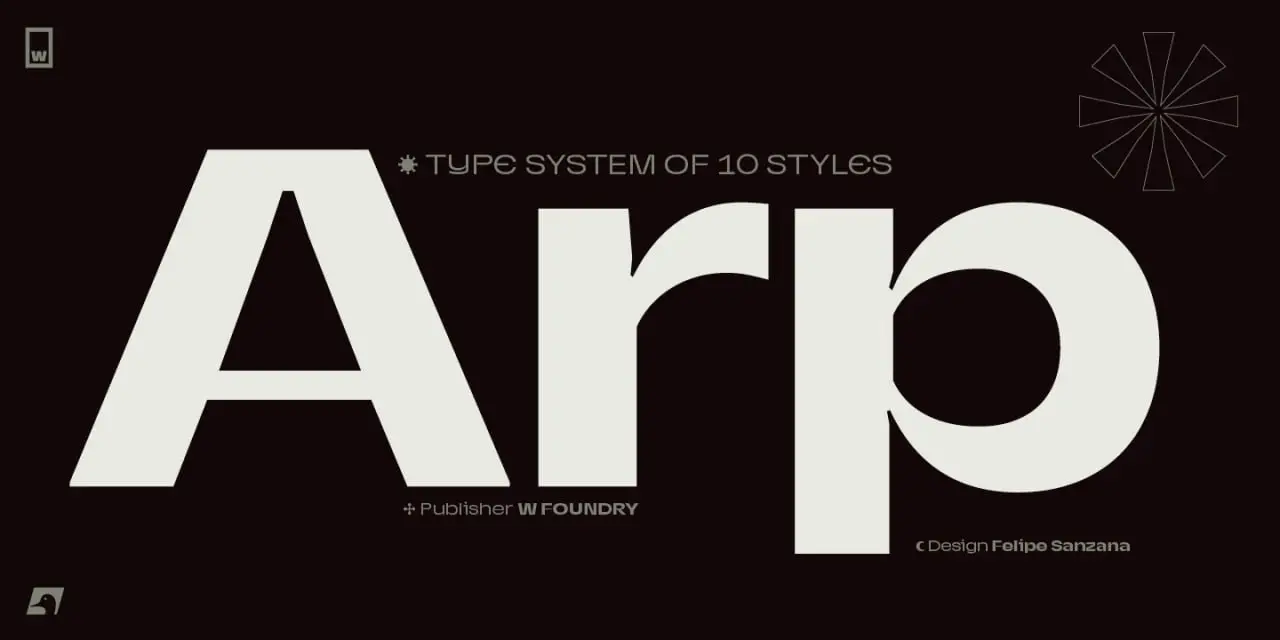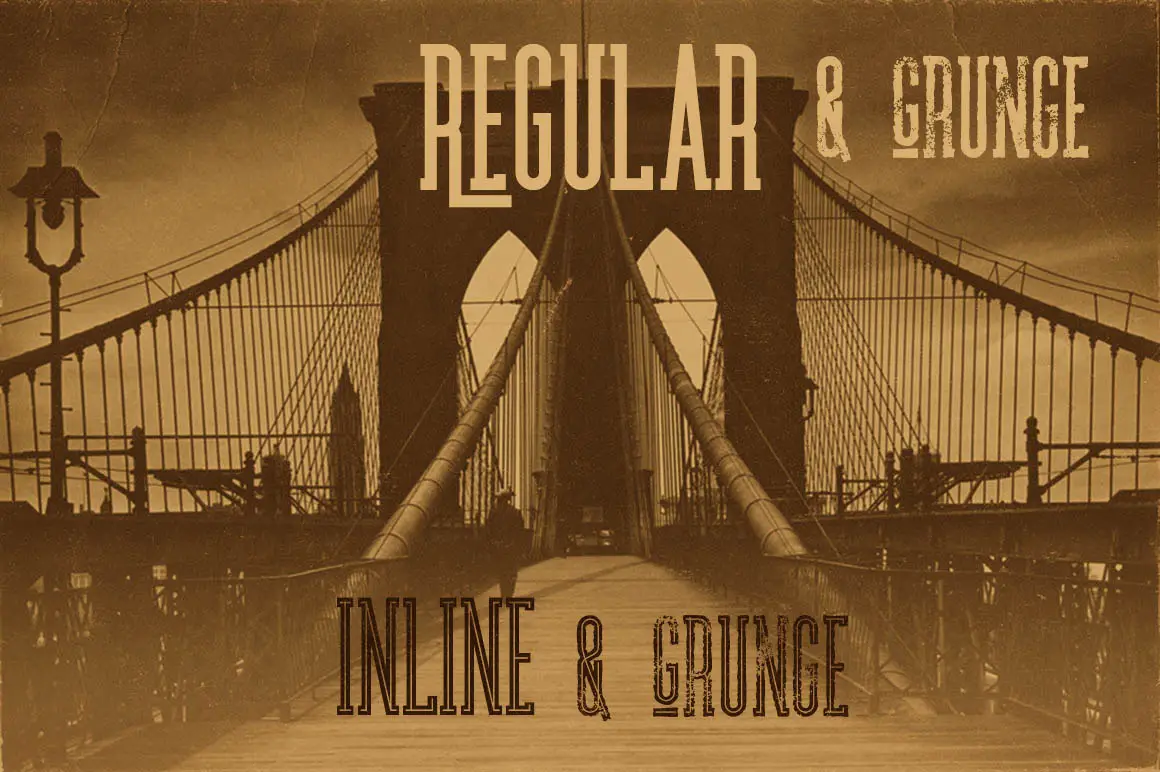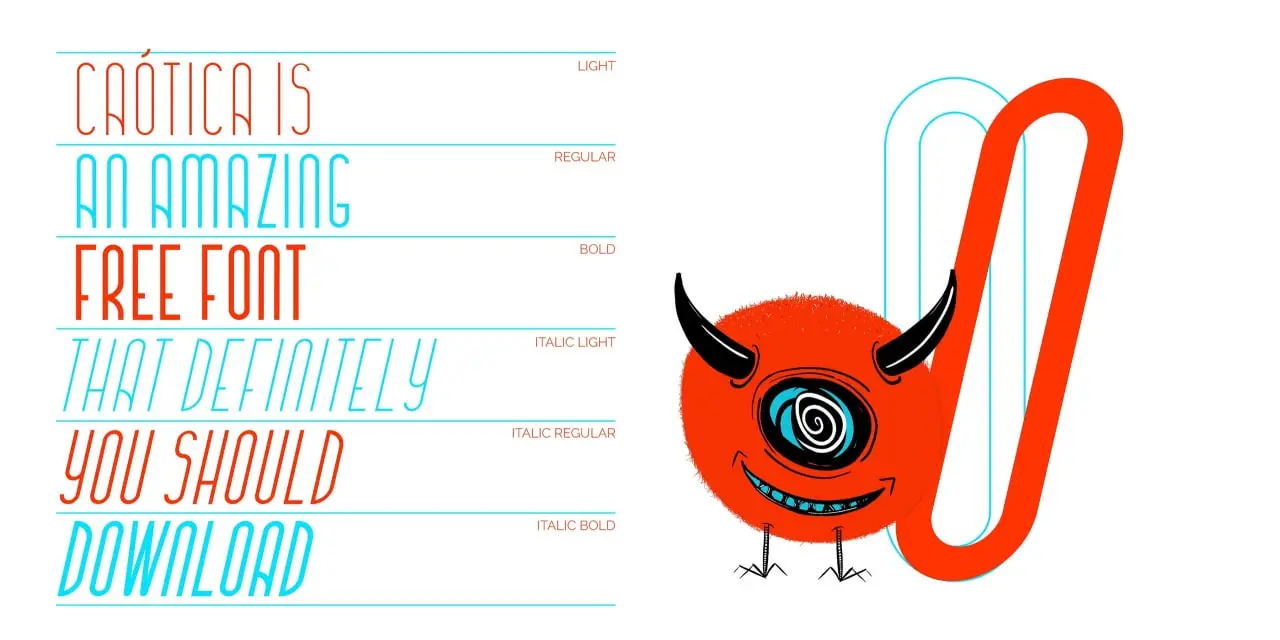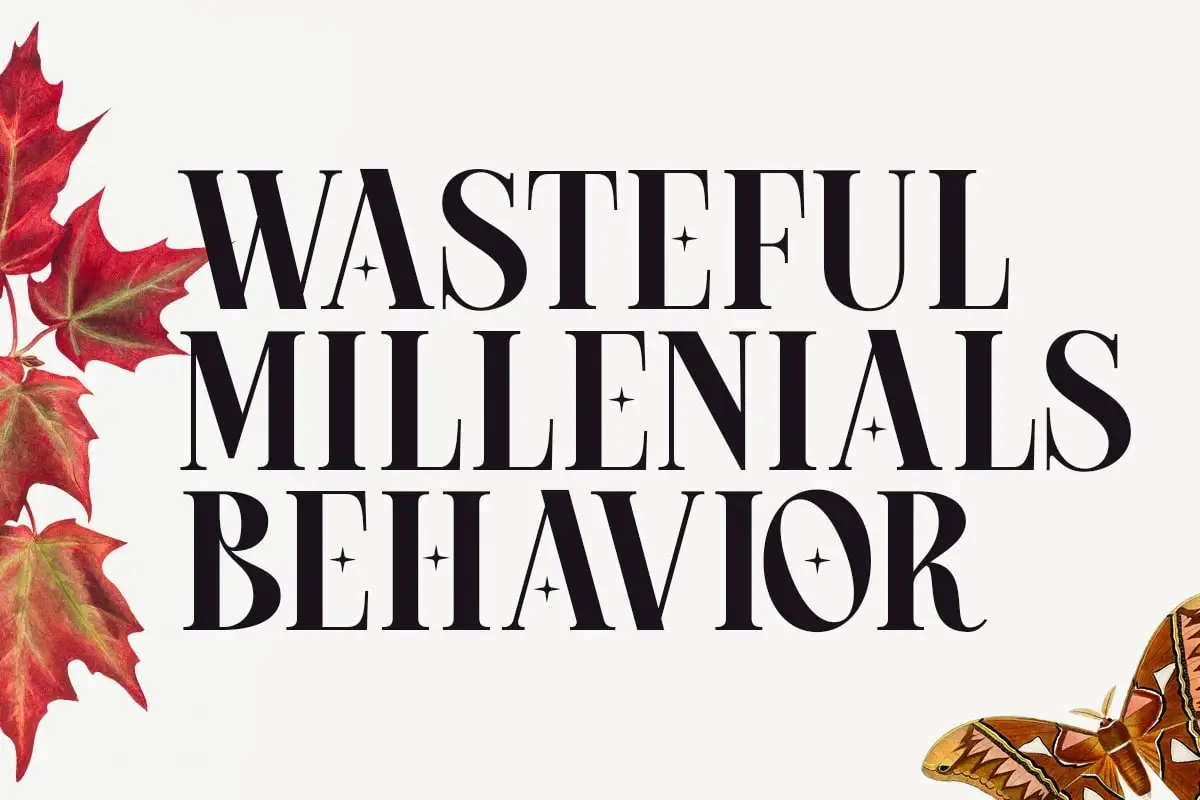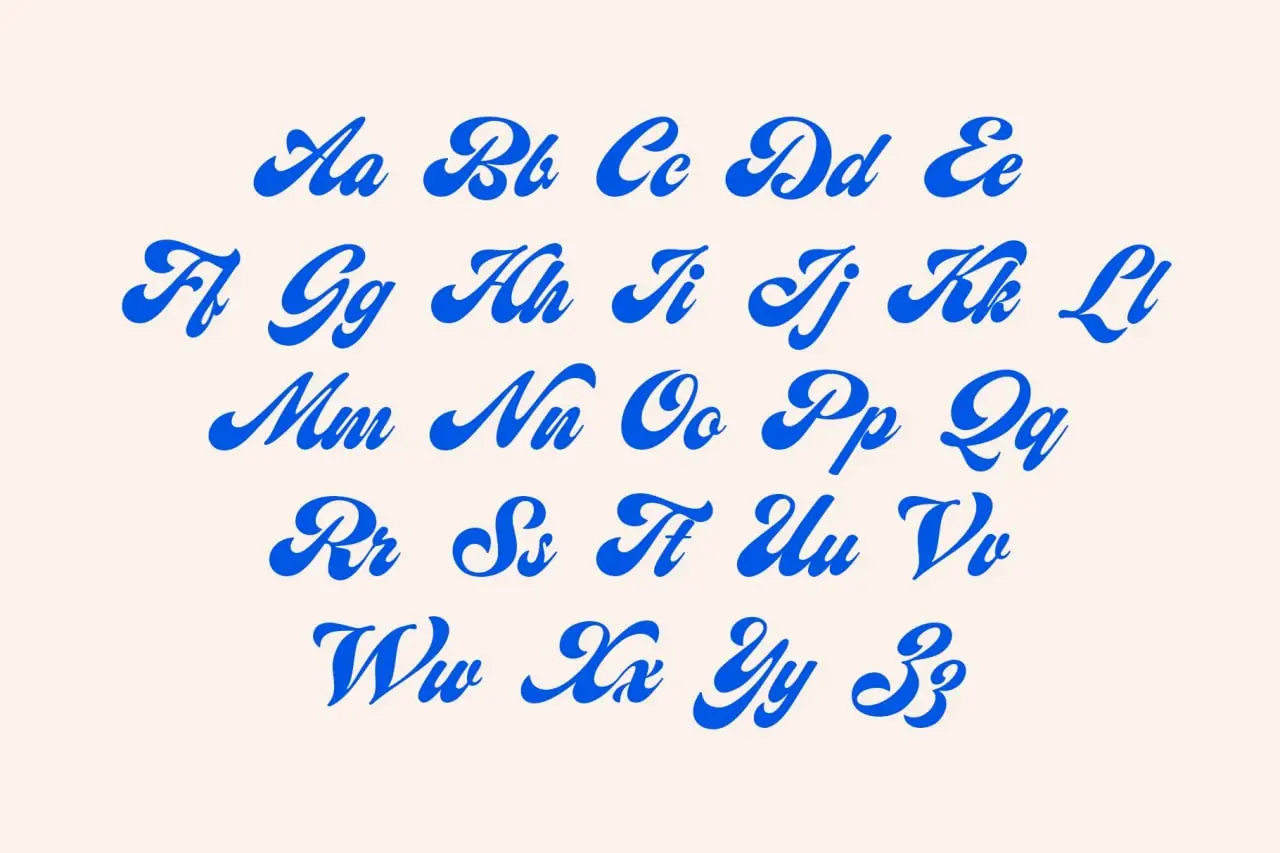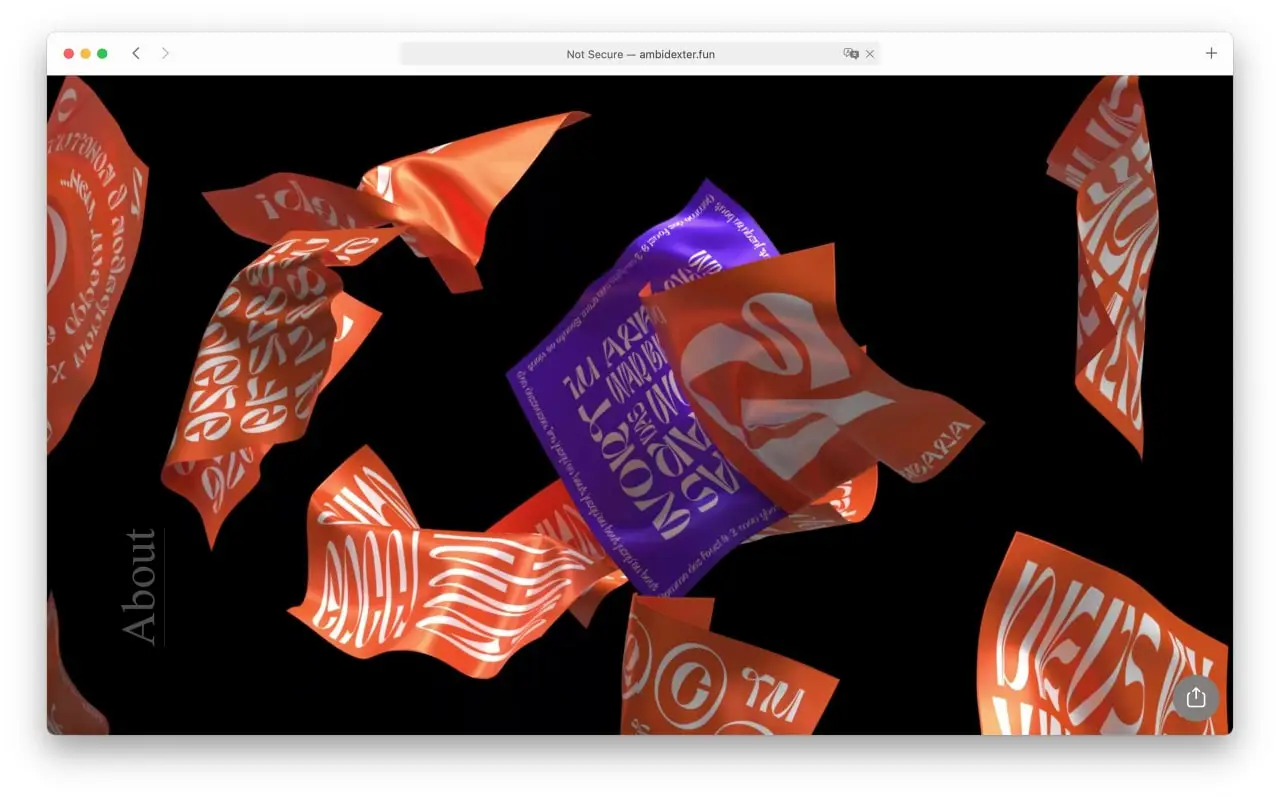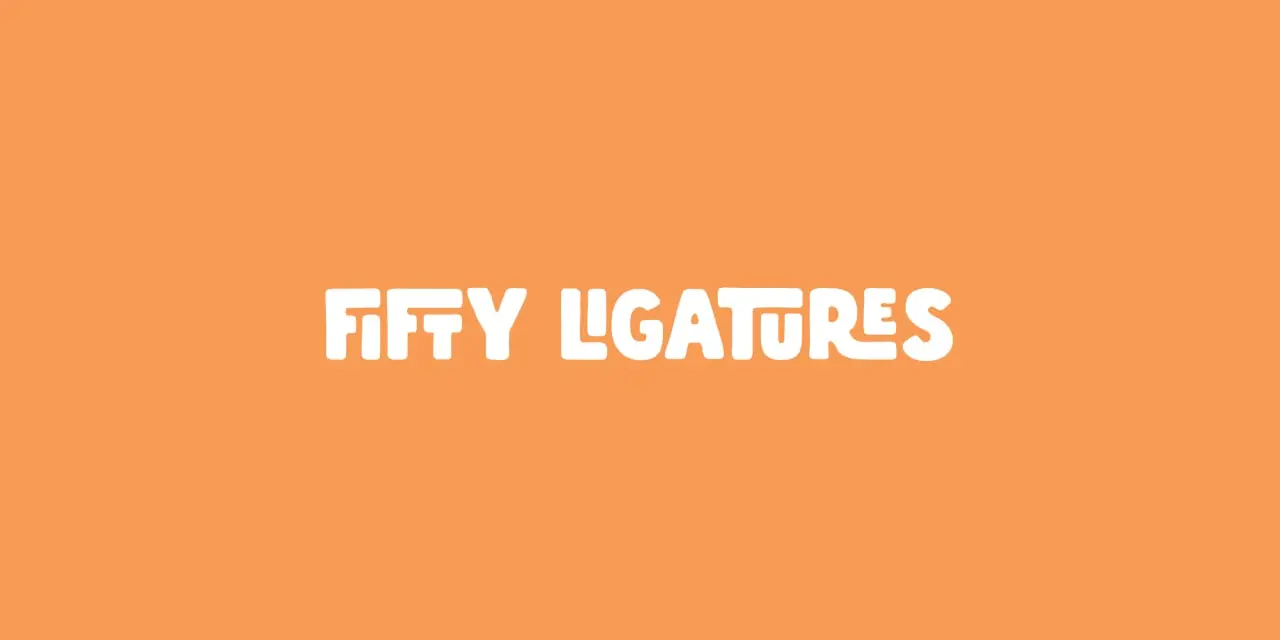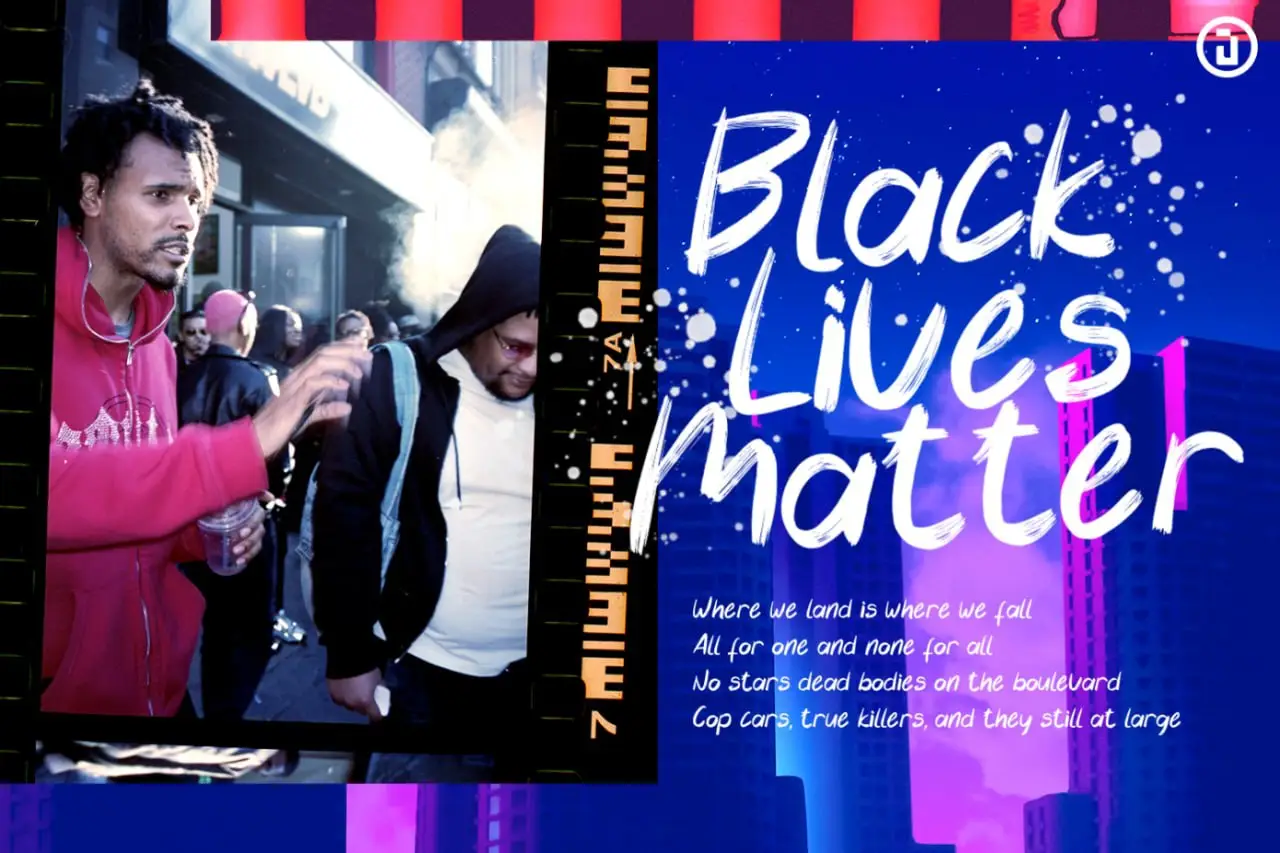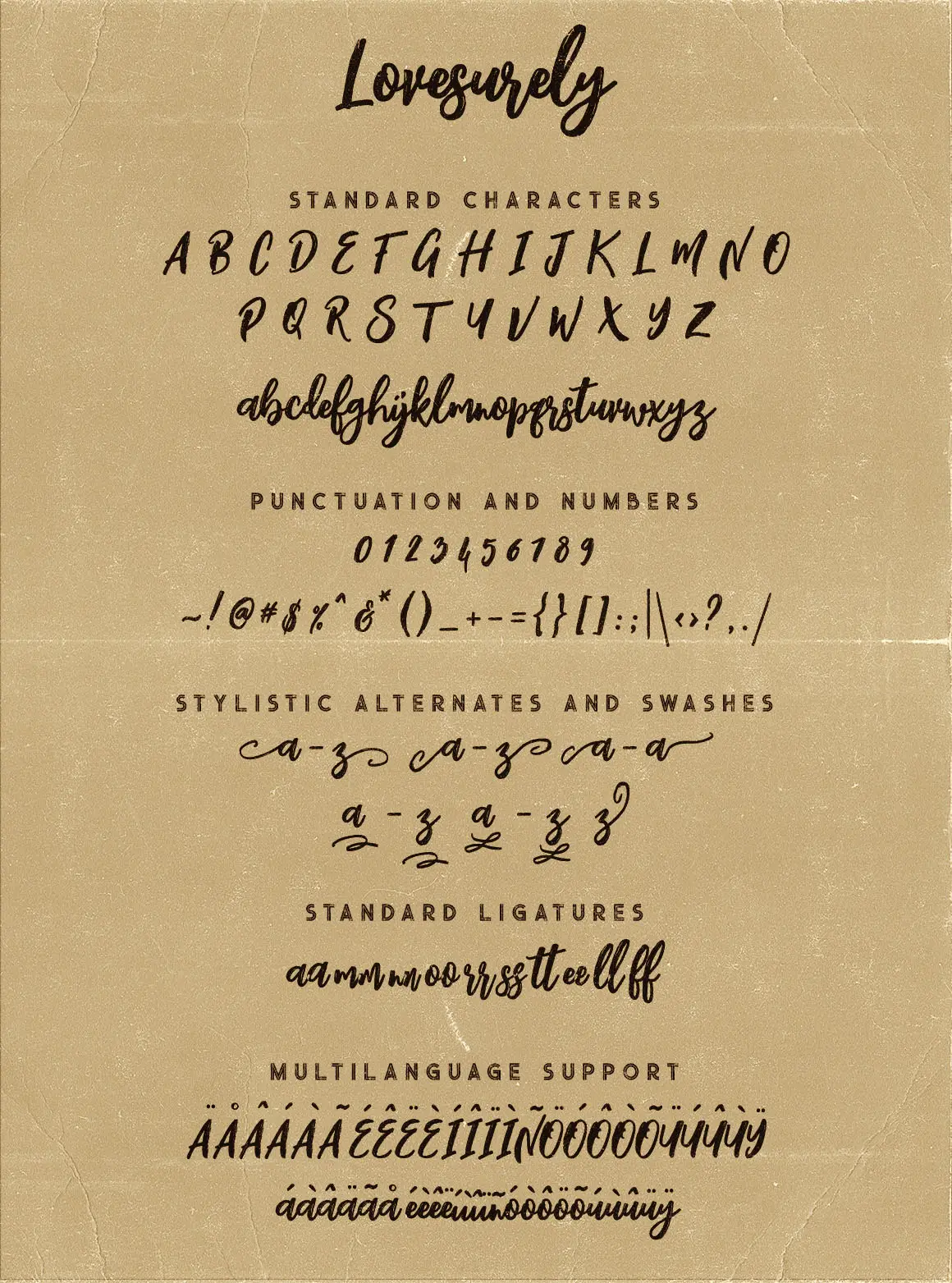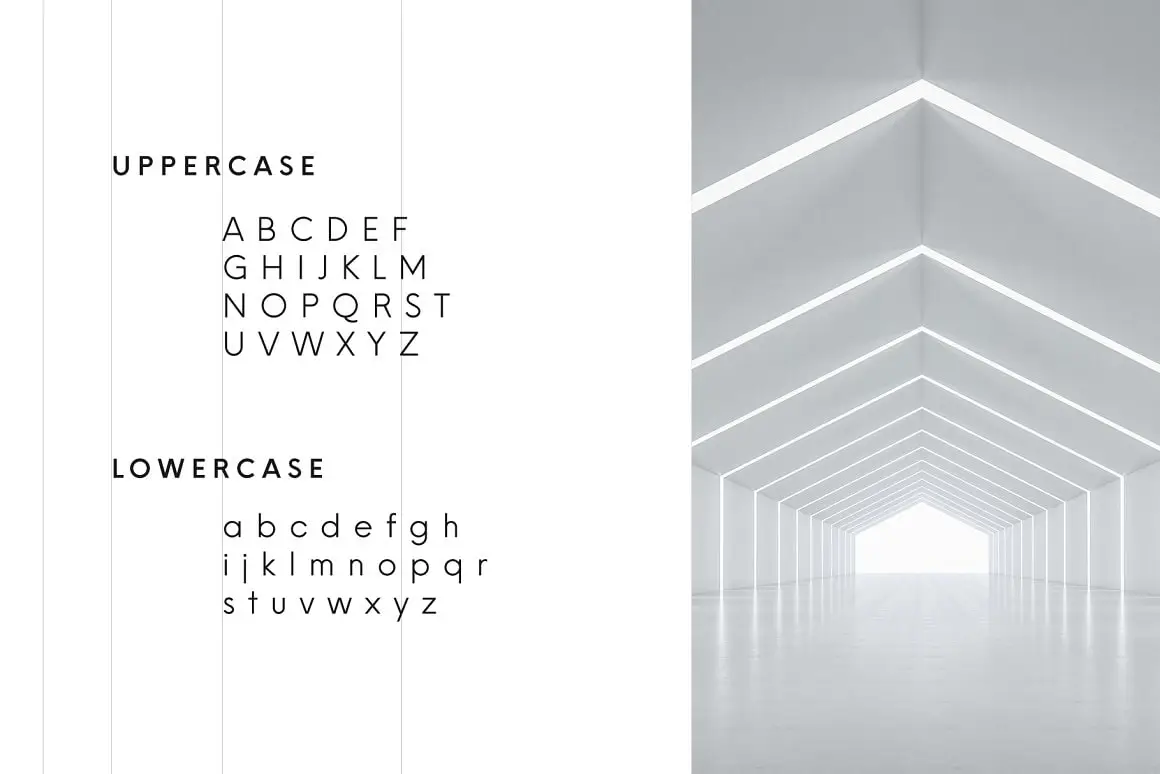
Liviatica-Display Font
Make your headlines scream elegance with this stunning display typeface! Its modern curves and multiple weights are perfect for branding and logos that demand attention. 🌟
Jan Willem Wennekes-Abraham
This unique digital asset is a burst of pure creativity. High-res and super versatile, it’s the secret weapon you need for both print and web projects. 🖌️
Letterenastudios-Ballad Font
Say hello to a font that sings elegance! With its sophisticated design and multiple weights, it’s an instant classic for branding and UI work. 🎶
Egor Belozerov Paratype-Ambidexter
Need a font that’s both modern and functional? This versatile typeface has a unique character that will make your logos and branding stand out instantly. ✨
Ed Piedmont
Add some serious style to your marketing materials with this versatile design asset. High-res and fully customizable—what’s not to love? 🔥
Caotica By Beatriz Goncalves
Unleash a little beautiful chaos in your projects! This asset packs high-quality elements that are easy to customize and full of creative flair. 💥
Crimson Queen-Modern Serif
Long live the Queen! 👑 This modern serif is all about sophistication with clean, contemporary lines. Perfect for your next luxury brand project.
Bali Magic By © Labstudioid
Transport your audience to the vibrant island of Bali! This collection is filled with tropical vibes and high-res graphics that are pure bliss. 🏝️
Arp Font By Felipe Sanzana
Clean, modern, and incredibly versatile—Arp is the typeface your toolkit has been waiting for. It’s a total workhorse for branding and web design. 🚀
Brooklyn
Bring a bit of NYC street style to your designs! This asset collection is packed with high-res backgrounds and graphics that are pure gold. 🗽
Sadertime
Channel those modern aesthetics with a name that’s as unique as its design. Fully customizable elements make this a must-have for any digital artist. 🌙
Billiard
Rack ‘em up! 🎱 This playful set inspired by the classic game is editable and packed with vector files. Perfect for game-themed or retro projects.
Enchanting
True to its name, this asset is pure magic. With whimsical, elegant elements that are easy to customize, it’s perfect for commercial or personal projects. ✨
Lovesurely
Spread the love with this stunning modern asset! Ideal for branding, marketing, and web projects that need a touch of heart and soul. ❤️
Drink Up
Cheers to great design! 🍹 This refreshing asset is perfect for beverage branding, social media, and marketing graphics. Grab it and get mixing!
Romantic Fonts 3
Fall in love with type all over again! This curated collection of scripts, serifs, and displays is pure romance—perfect for weddings and heartfelt projects. 💌
Sft Schrifted Sans 1 110 Font Cyrillic By Yulia Gonina Schrifteria Foundry
Need a clean sans-serif with Cyrillic support? This modern font is super stylish and perfect for global projects. A true gem from Schrifteria! 🌍
Tt Tsars Font Family (C) Typetype-Extended Latin & Cyrillic
Rule your design kingdom with this royal font family! 👑 With tons of weights and both Latin & Cyrillic support, it’s a true powerhouse for branding.
Nela Sans-Minimal & Geometric Sans Font
Less is more! This geometric sans is the definition of minimalist elegance. Clean lines and balanced proportions make it a modern classic. 🖤
Kikola Nafi Font
Wrap up your toolkit with this beautifully crafted typeface! It’s elegant, versatile, and comes with multiple weights—a perfect finale to this collection. 🎉